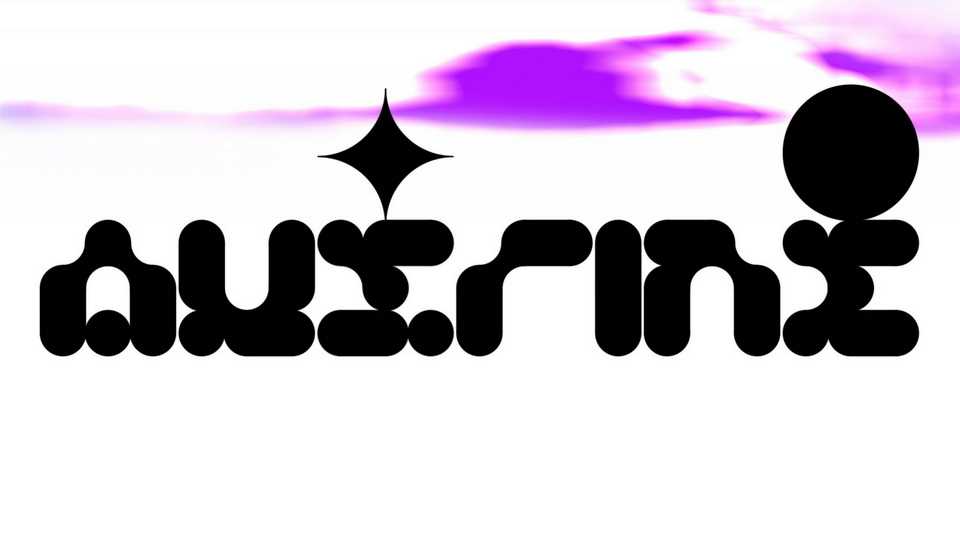
Download Aušrinė font, a display typeface based on Lithuanian folklore with a cosmic look that blends circles, sun and stars. Aušrinė was designed without thinking much about its functionality and focused on aesthetics instead.